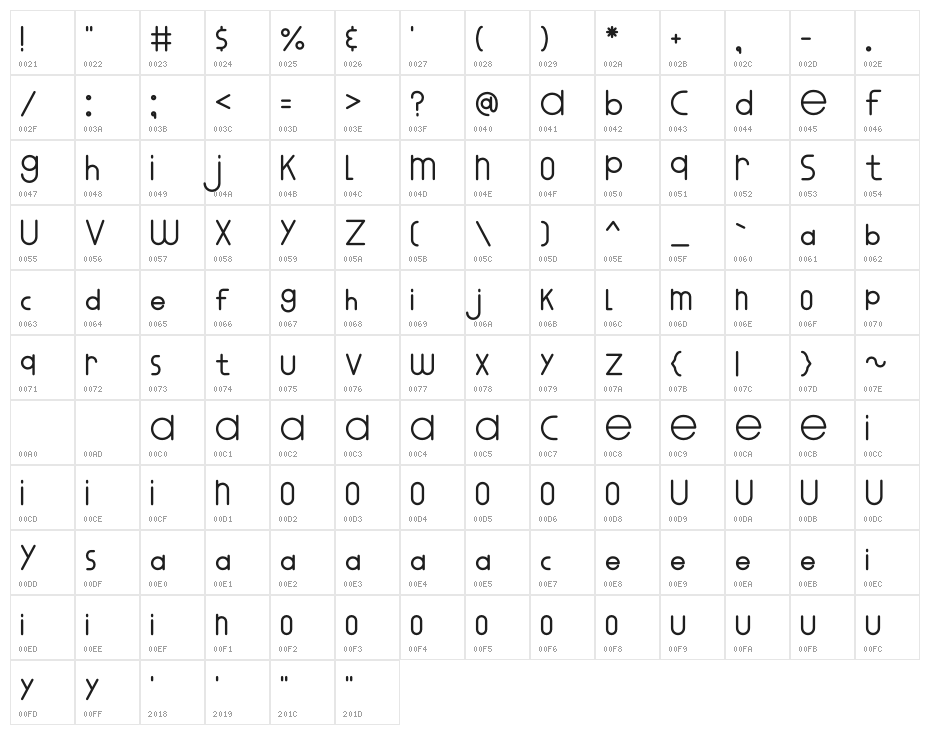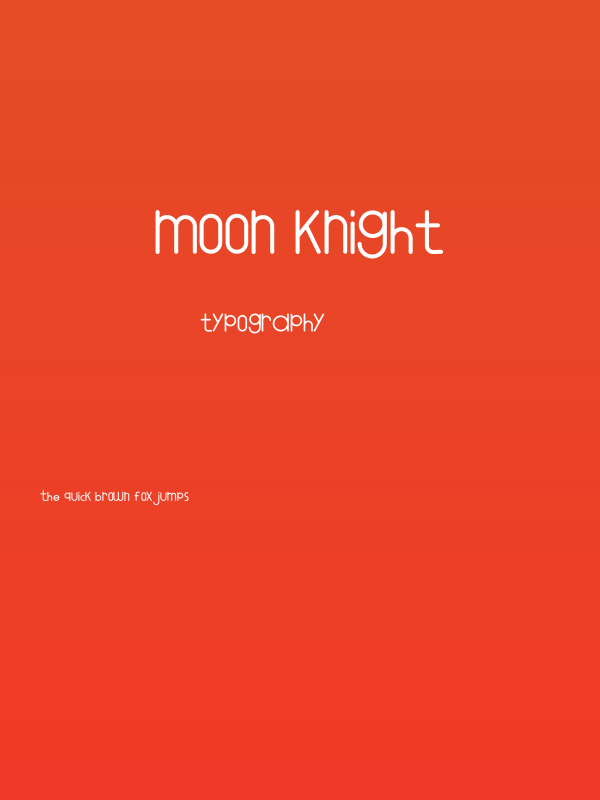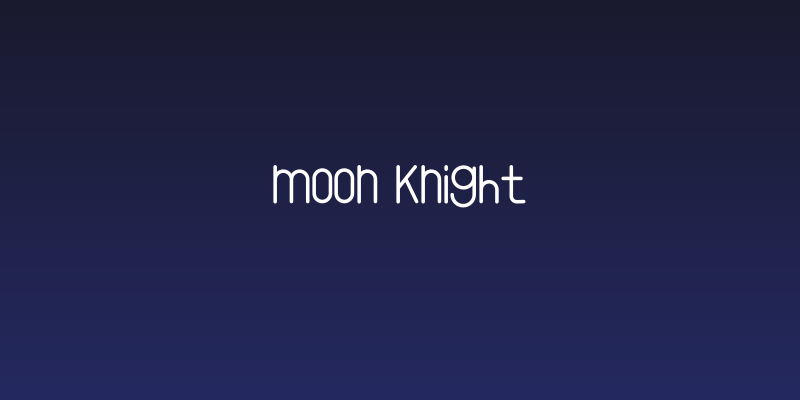
MOON KNIGHT Font
MOON KNIGHT Description
This font features a playful and modern design with rounded edges and a consistent stroke width. The characters are evenly spaced, creating a harmonious and approachable appearance. The uppercase and lowercase letters maintain a uniform style, with the lowercase letters mirroring the uppercase in form but reduced in size. The numerals and special characters follow the same design principles, ensuring a cohesive look across all text elements. Its simplicity and clarity make it versatile for various design applications.